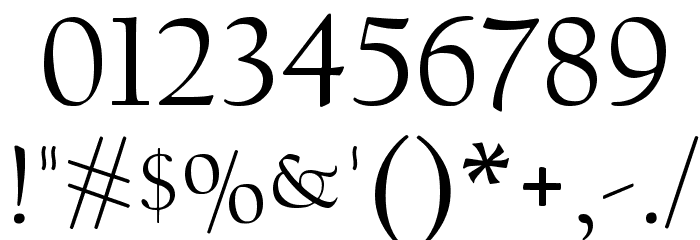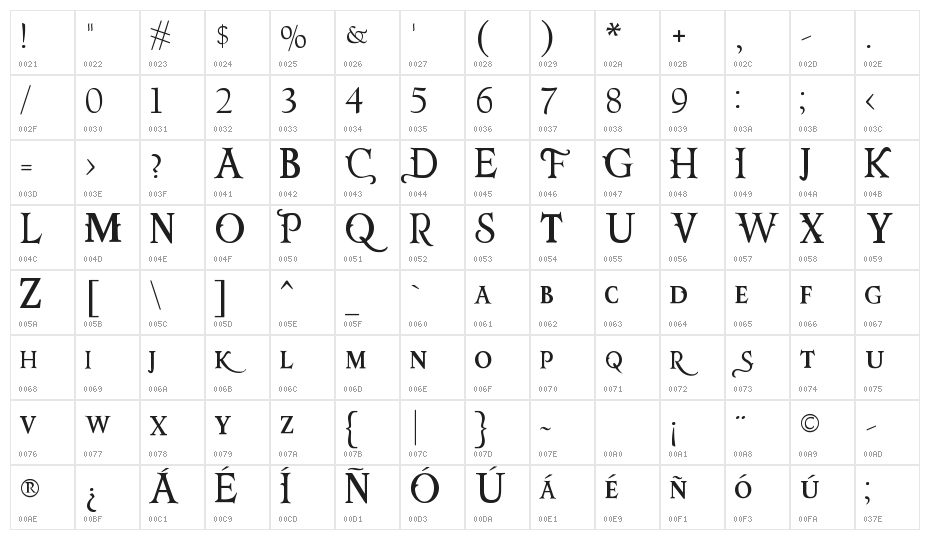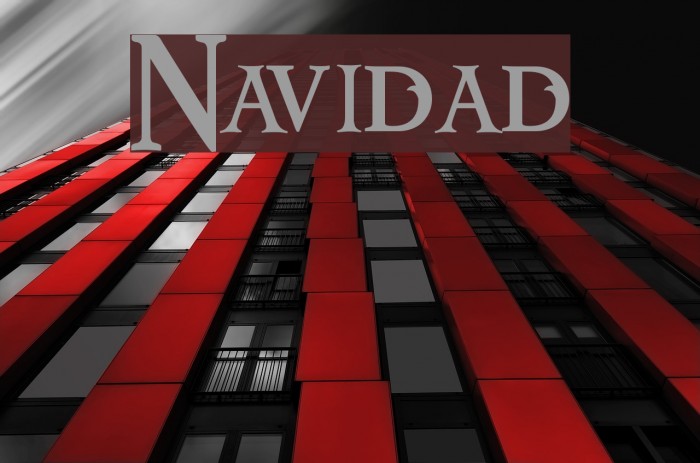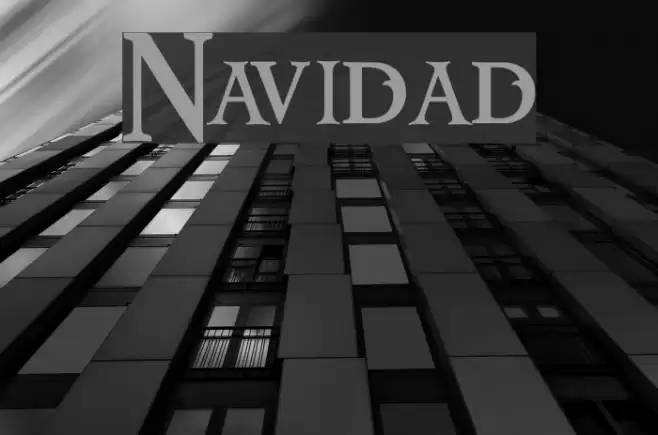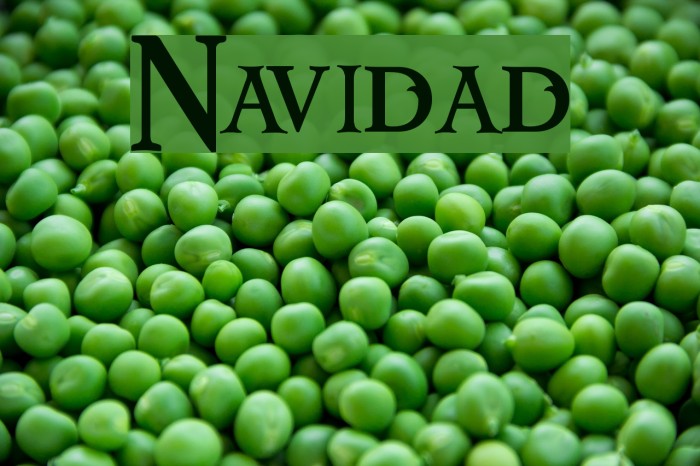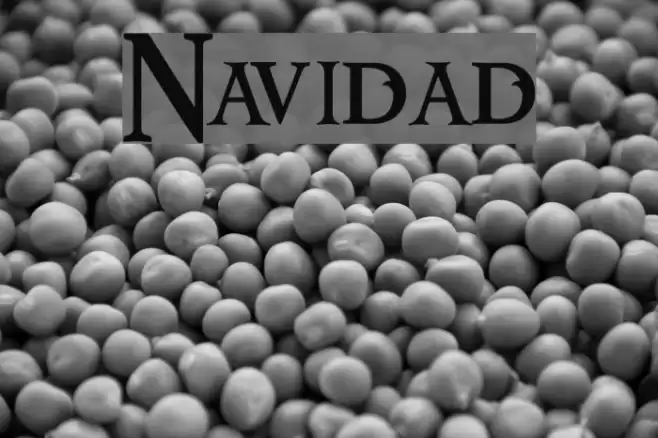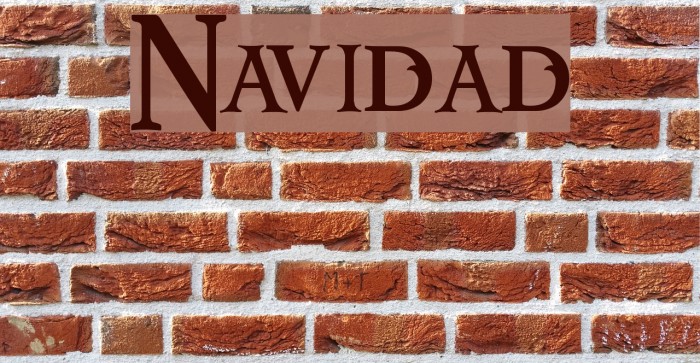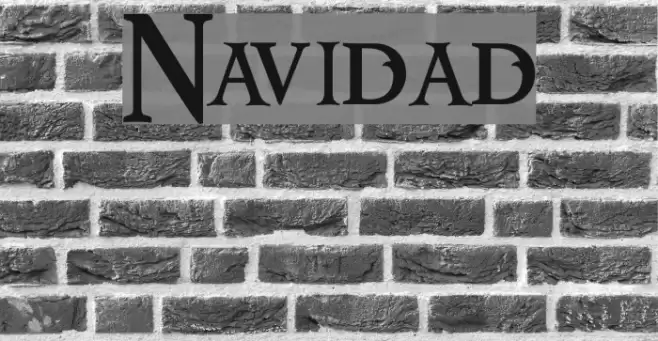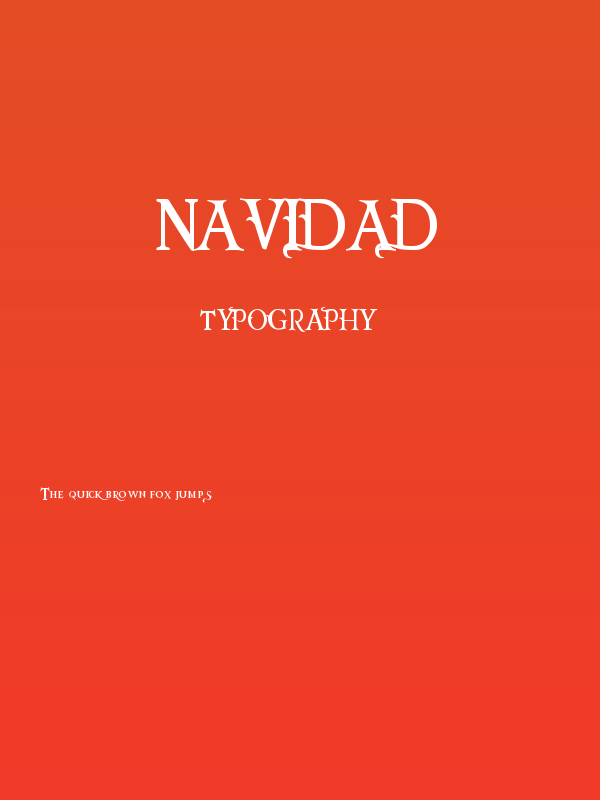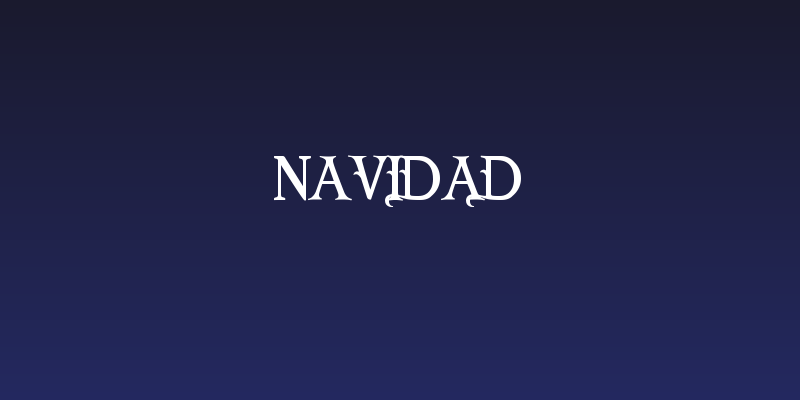
Navidad Font
Navidad Description
This font features a decorative and elegant style with intricate serifs and flourishes that give it a festive and ornate appearance. The uppercase letters are bold and commanding, while the lowercase letters maintain a consistent style with slightly less embellishment. The numerals are clear and distinct, matching the overall decorative theme. Special characters are designed with unique flair, enhancing the font's ornamental quality. This font is ideal for creating a sophisticated and festive atmosphere, perfect for holiday-themed projects or elegant invitations.
| Proposed Projects | Holiday cards, festive invitations, decorative posters, branding for luxury products. |